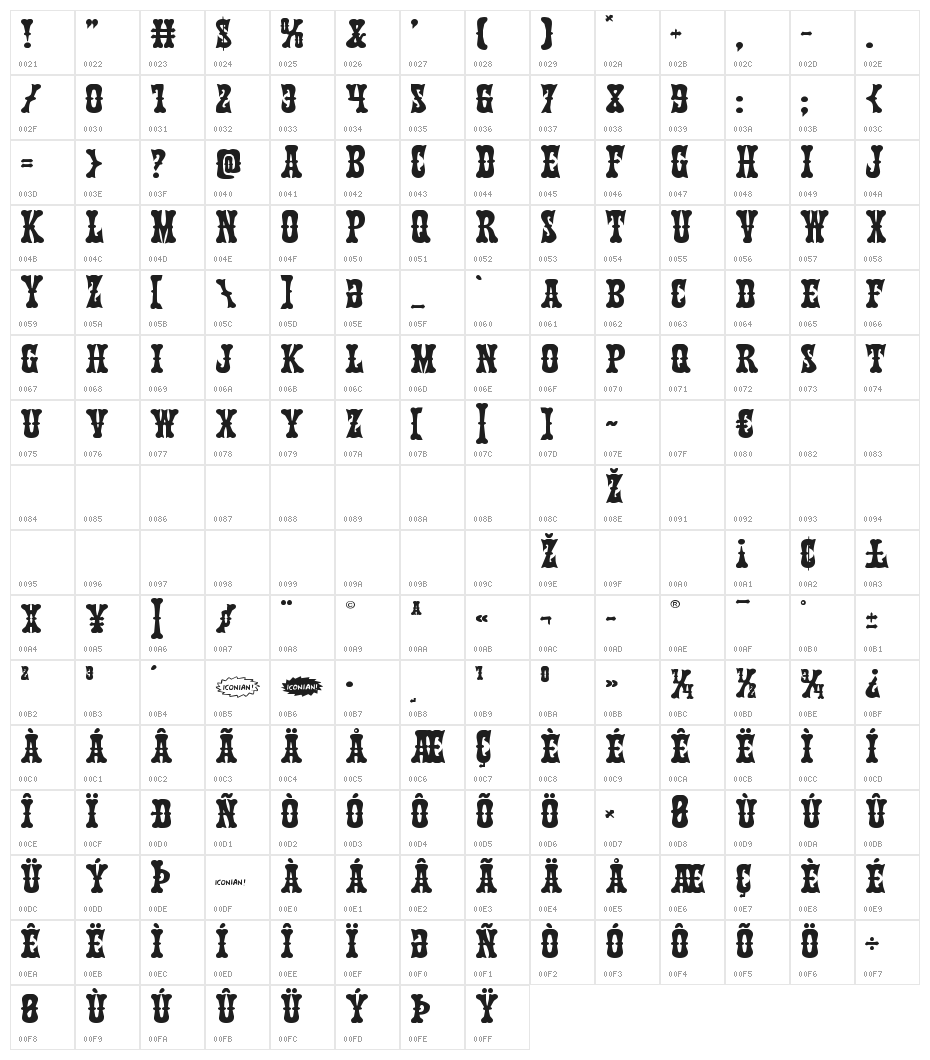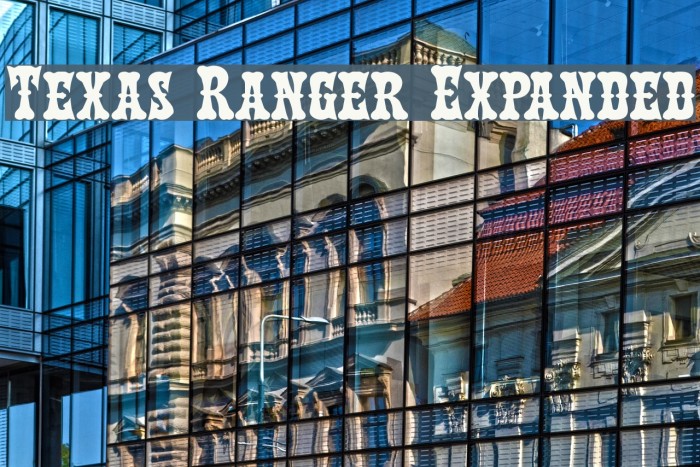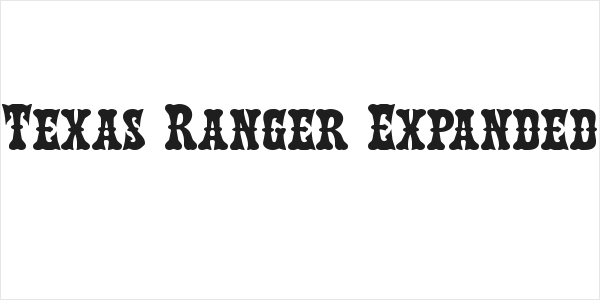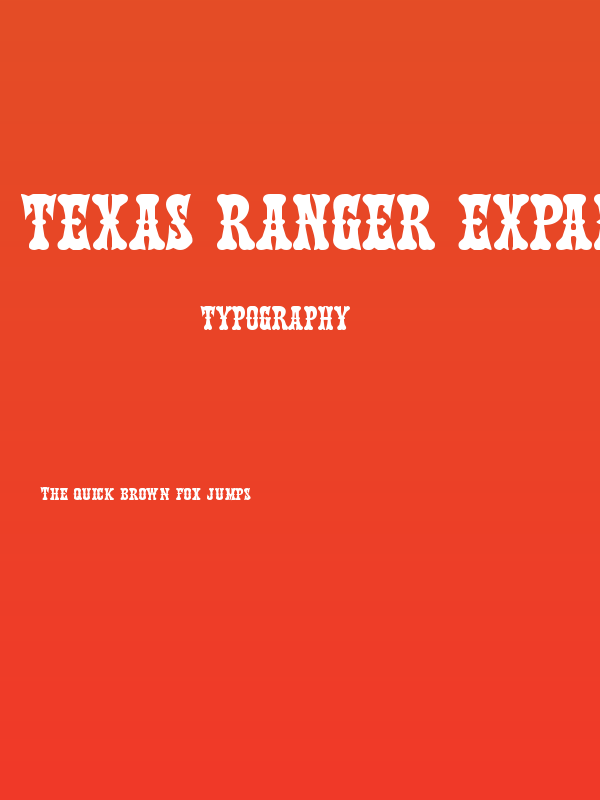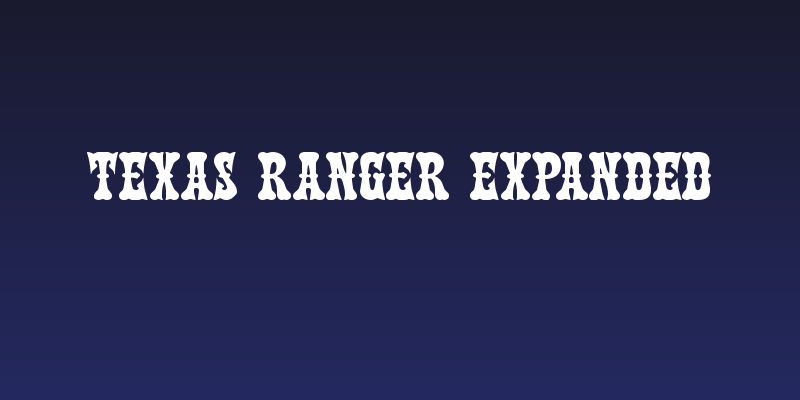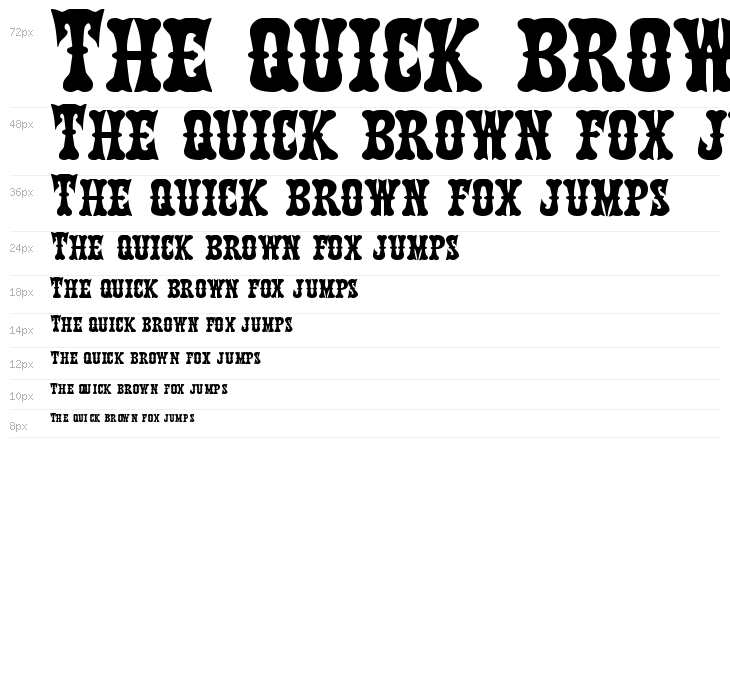
Texas Ranger Expanded Font
Texas Ranger Expanded Description
This font features a bold and decorative style with a distinctly Western flair. The characters are heavily stylized, with thick strokes and unique serifs that give it a rugged, vintage appearance. The uppercase and lowercase letters maintain a consistent design, emphasizing the boldness and ornamental nature of the font. The numbers and special characters follow the same aesthetic, ensuring a cohesive look across all text elements. The font's expanded width and intricate details make it particularly eye-catching, suitable for projects that require a strong visual impact.